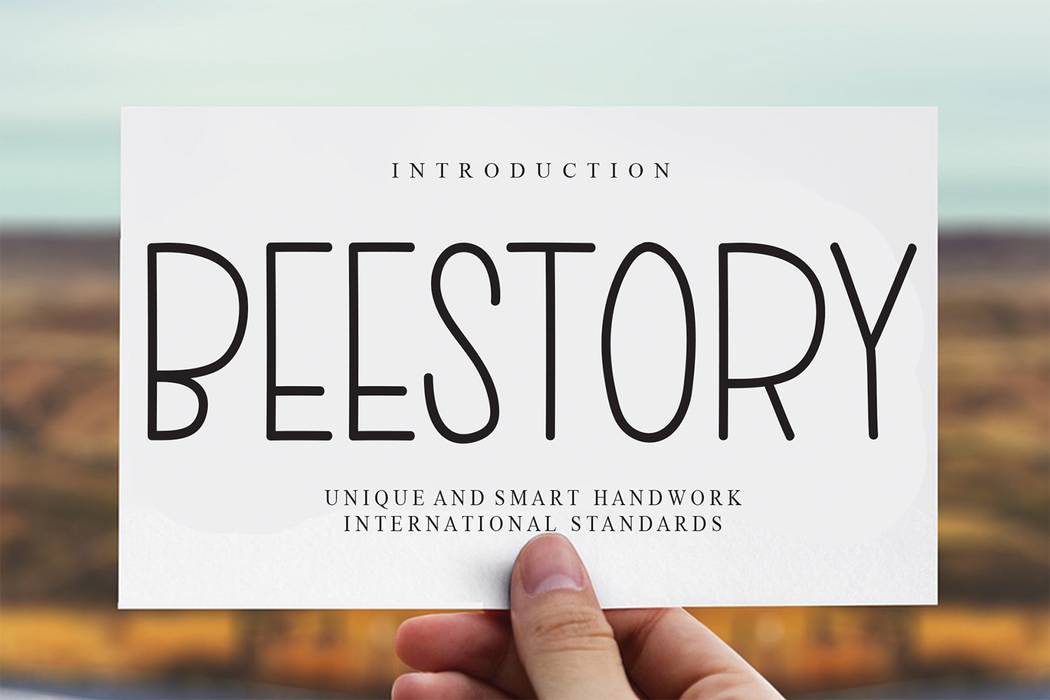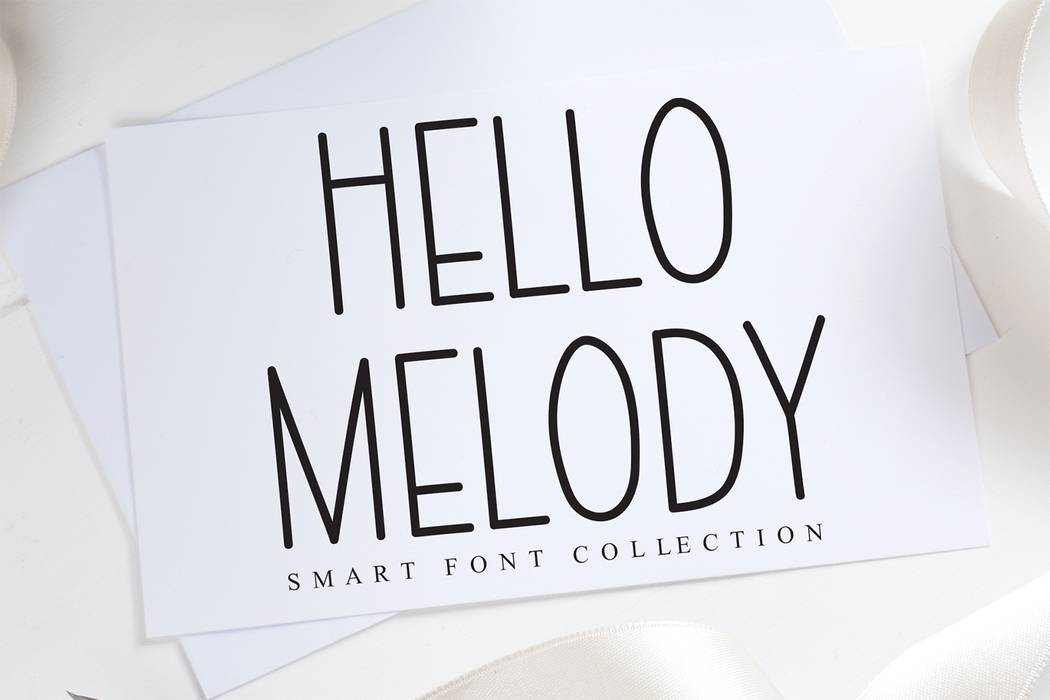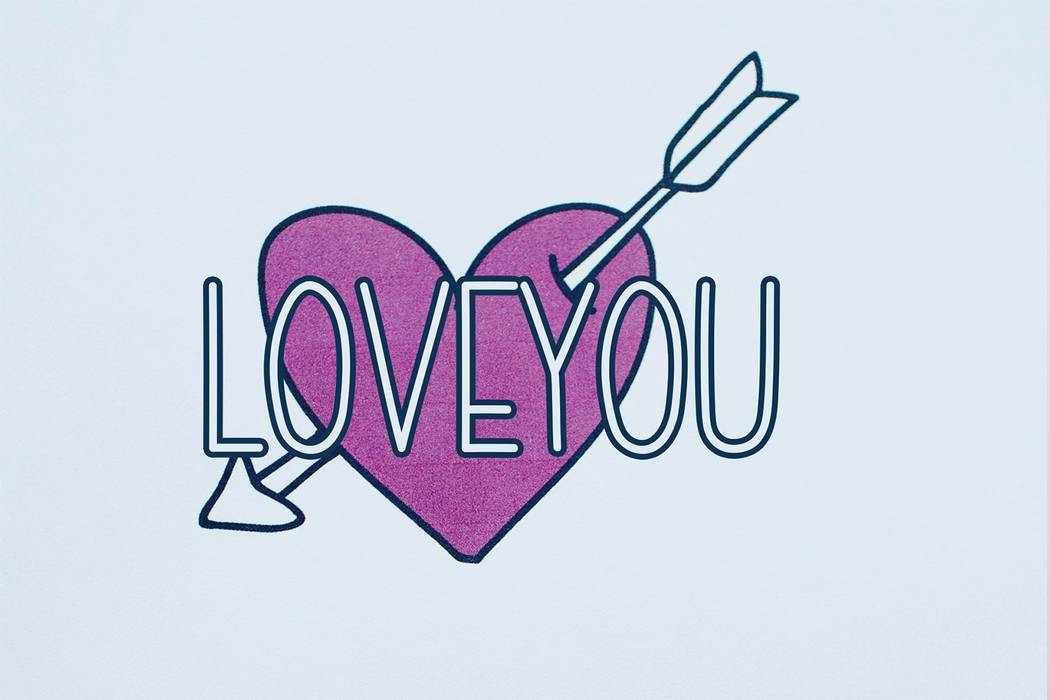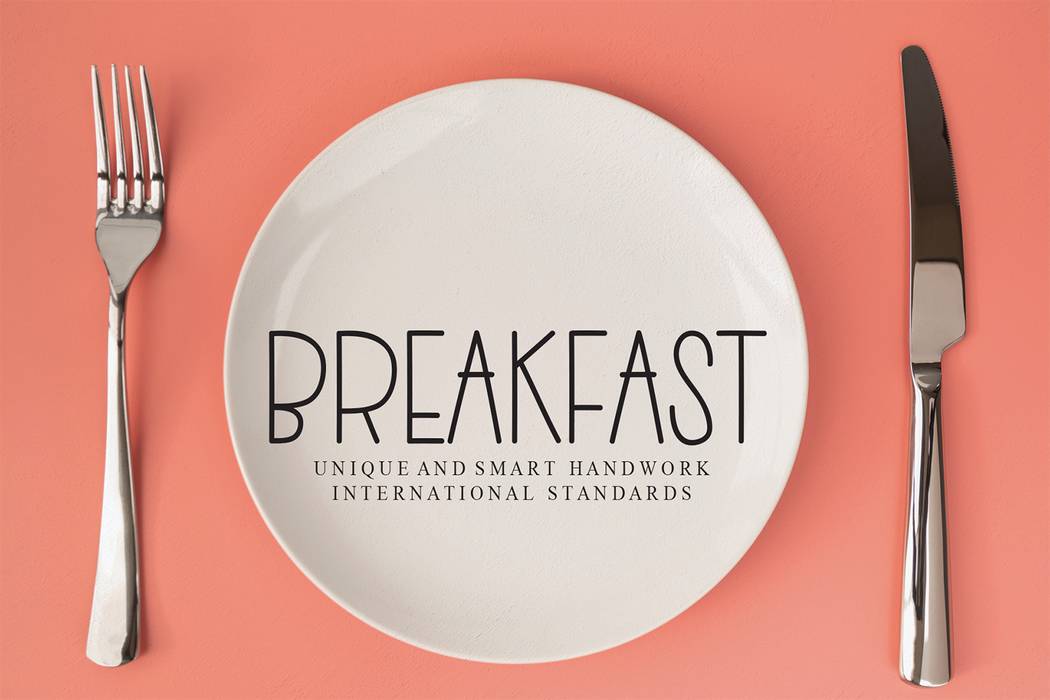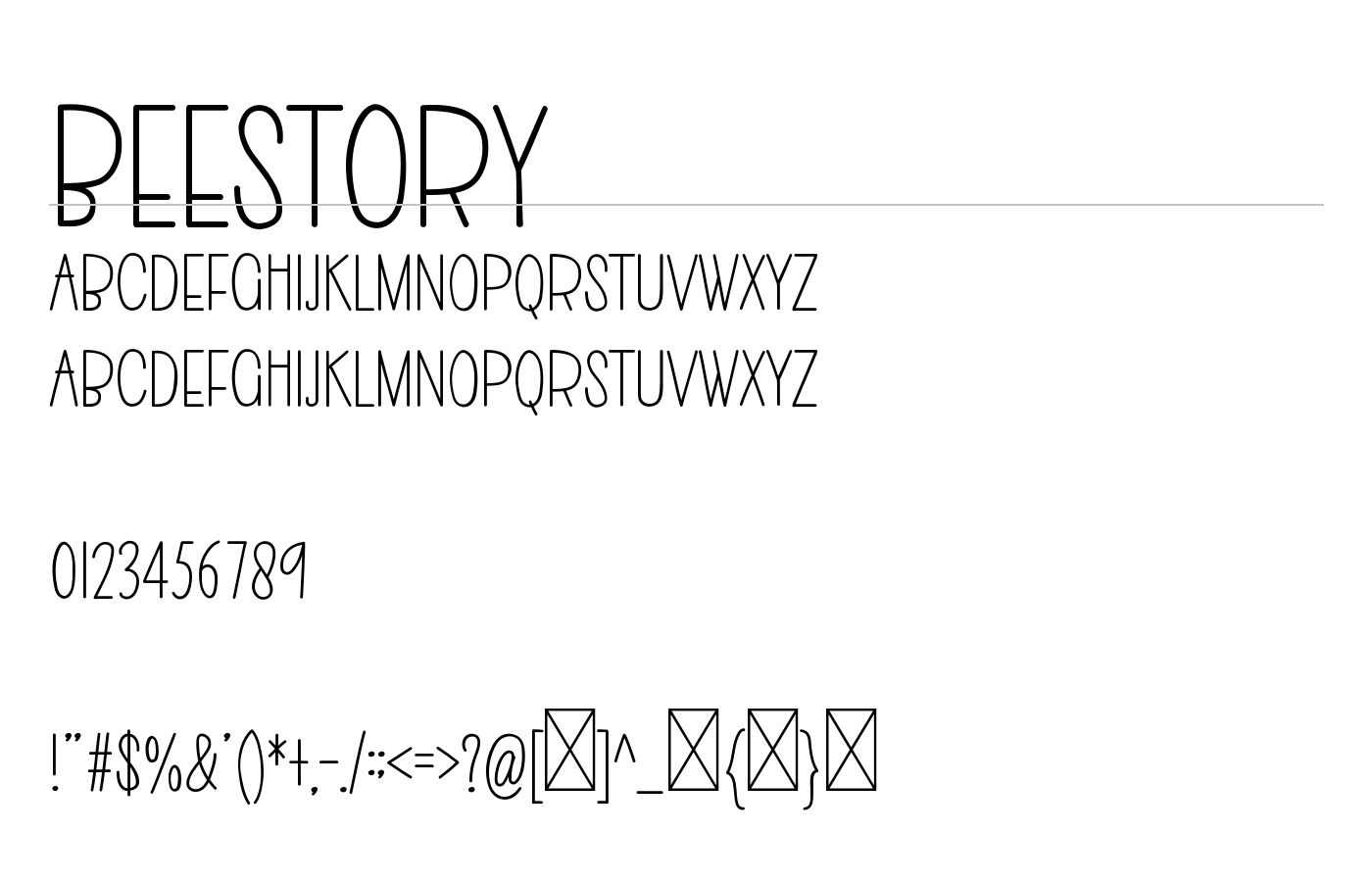
Beestory is a tall, narrow sans serif font with a playful and quirky character, featuring thin strokes and a handwritten style that adds charm and uniqueness. Its elongated letterforms and casual feel make it ideal for creative projects, logos, headlines, and editorial work where a friendly, imaginative touch is desired. This font works well in contexts that seek an approachable yet distinctive look, especially in designs targeting youthful or artistic audiences.
Beestory Font
About Beestory Font